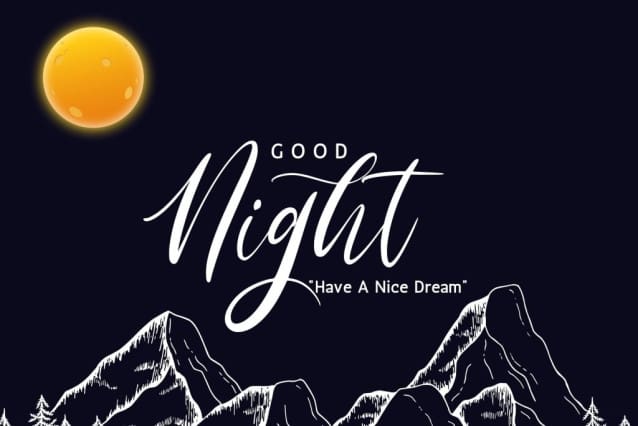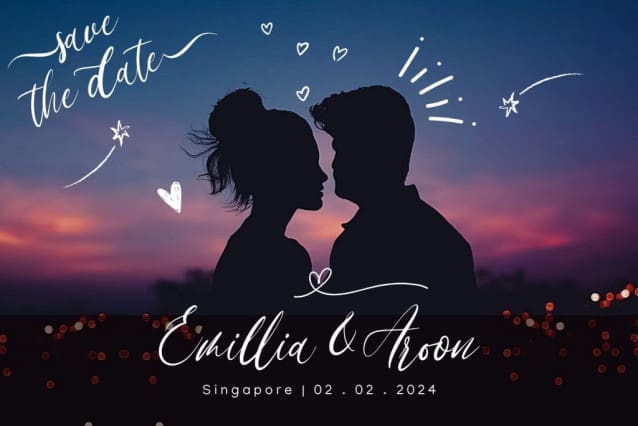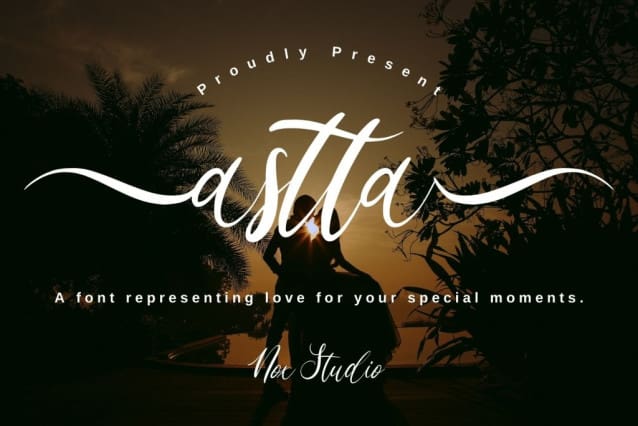
Astta Script Font
Astta Script Font a deeply enchanting handwritten typeface embodying pure romance. A perfect fit for diverse projects, this font instantly embellishes your logo, branding, and uplifting quotes with its exceptional and everlasting allure. The enchantment of Astta lies in its timeless charm that distinguishes your designs, giving them a touch of grace and sophistication.